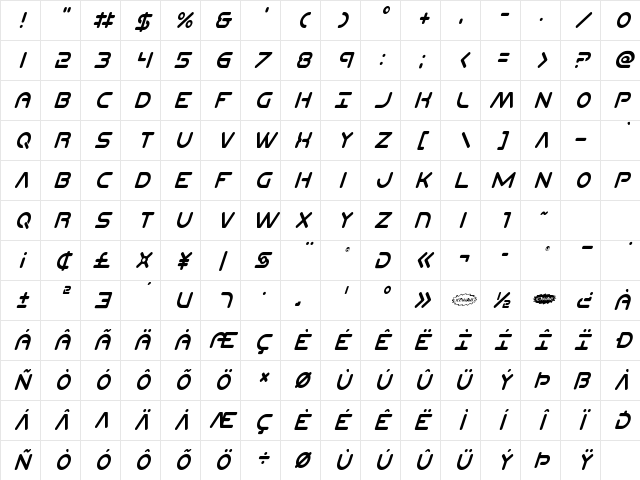
Planet N Condensed Italic Condensed Italic
Design Context for Planet N Condensed Italic
Planet N Condensed Italic is a composed and adaptable typeface that performs quietly and consistently across a wide range of design contexts. The slanted form adds forward momentum and visual energy. Its narrow stance lets it pack a punch even in space-constrained designs.
Pro Tip: Use Planet N Condensed Italic for emphasis, pull quotes, and subheadings where its slanted energy can add rhythm to the layout.